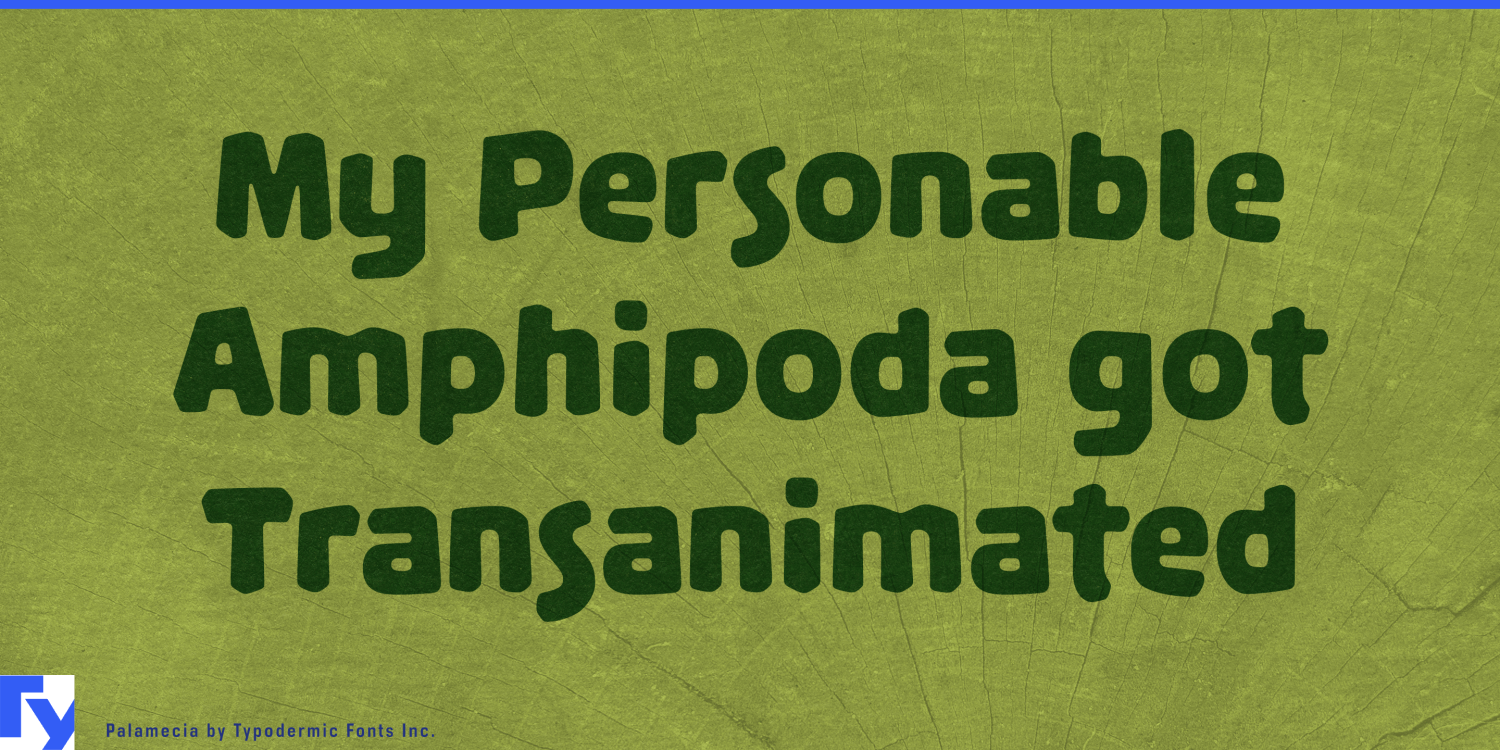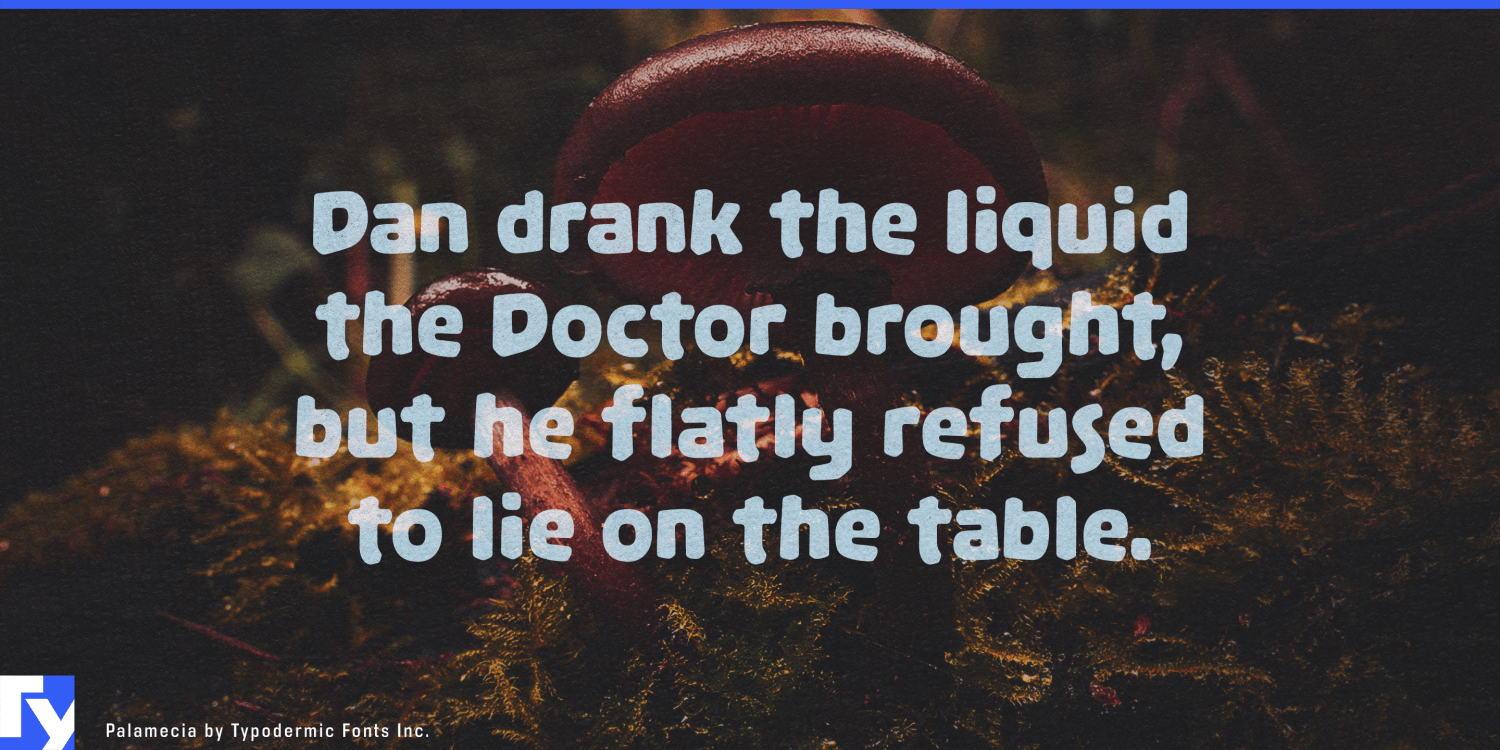
About Palamecia
Palamecia: where organic design meets digital resilience. This Typodermic Fonts creation is a testament to the evolution of typography in the age of diverse display technologies. At first glance, Palamecia’s playful, almost cartoon-like appearance…